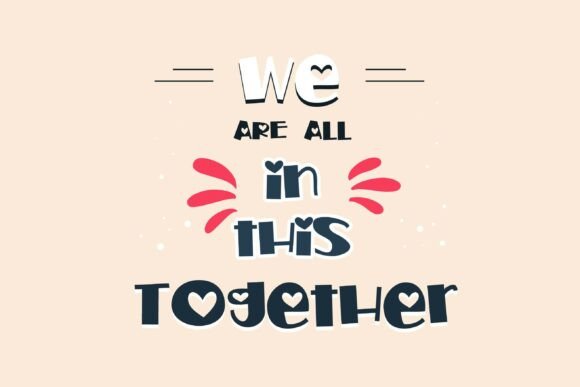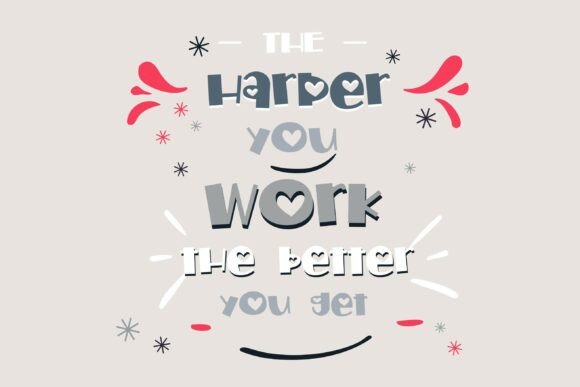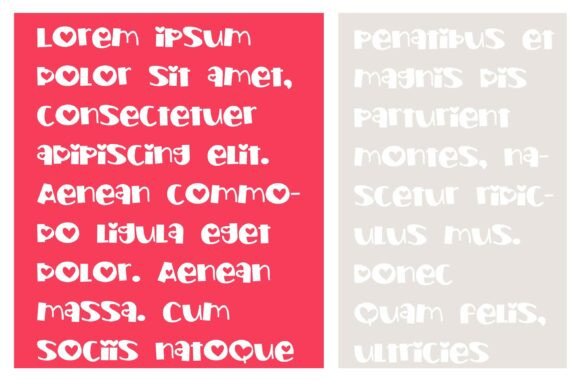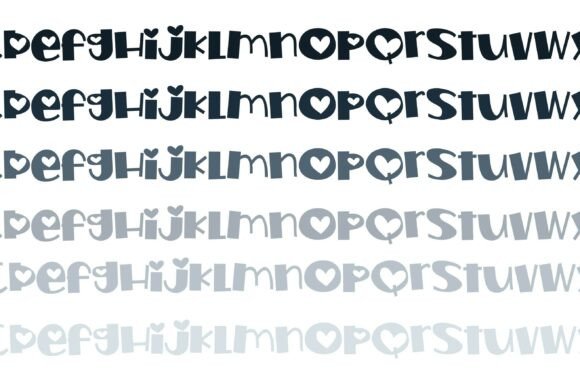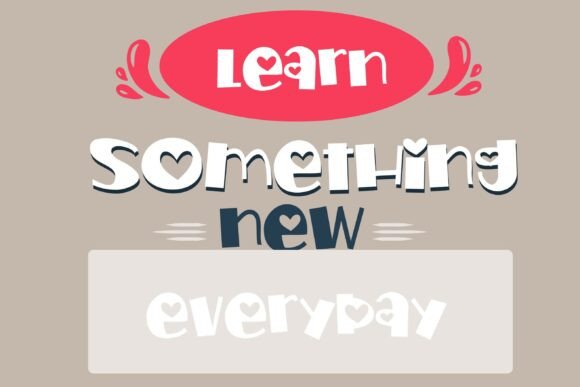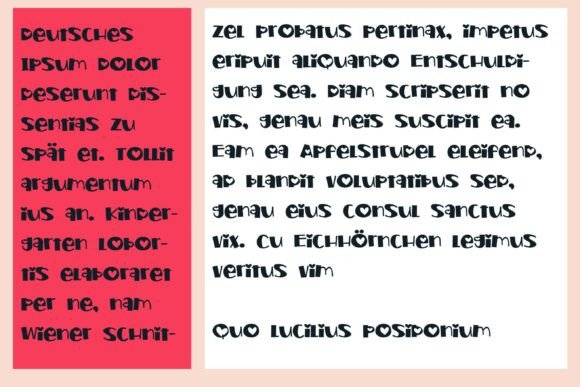
Introduction to Jelly Romance Font
Jelly Romance: Bouncy Love with a Crafty Twist Embrace the fun and energetic side of romance with Jelly Romance font, a “crafty love font” that feels as bouncy and flexible as its name suggests.
This Jelly Romance typeface is defined by its thick, rounded forms and a playful, irregular baseline that gives the text a sense of movement and “jiggle ” The standout feature of the Jelly Romance font is the integration of heart-shaped counters and dots, which injects a sense of handmade charm into every sentence.